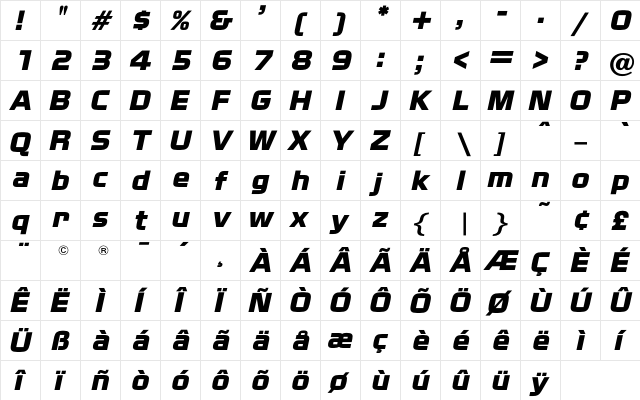
NissanOpti Italic
Design Context for NissanOpti Typeface
NissanOpti offers clean, dependable letterforms without strong stylistic allegiance, making it a practical choice for designers who need flexibility. The slanted form adds forward momentum and visual energy.